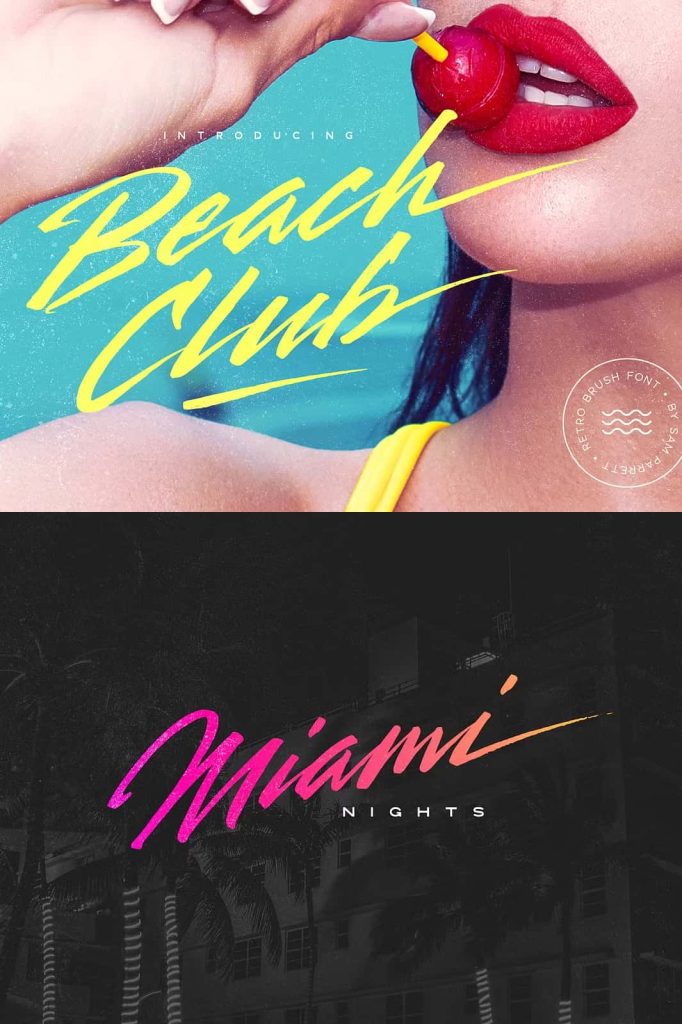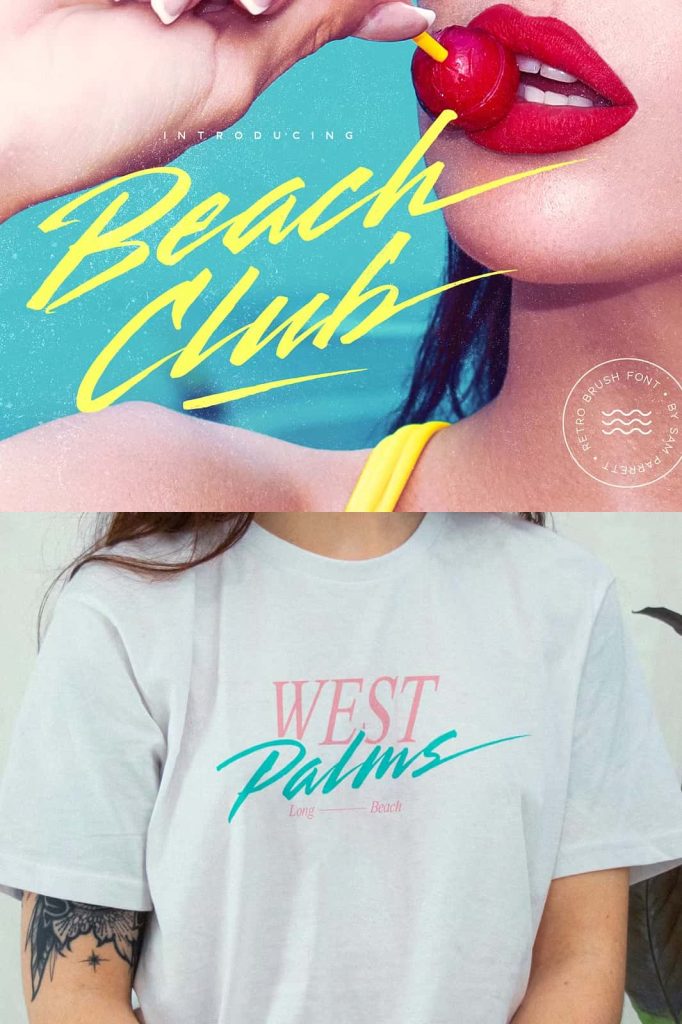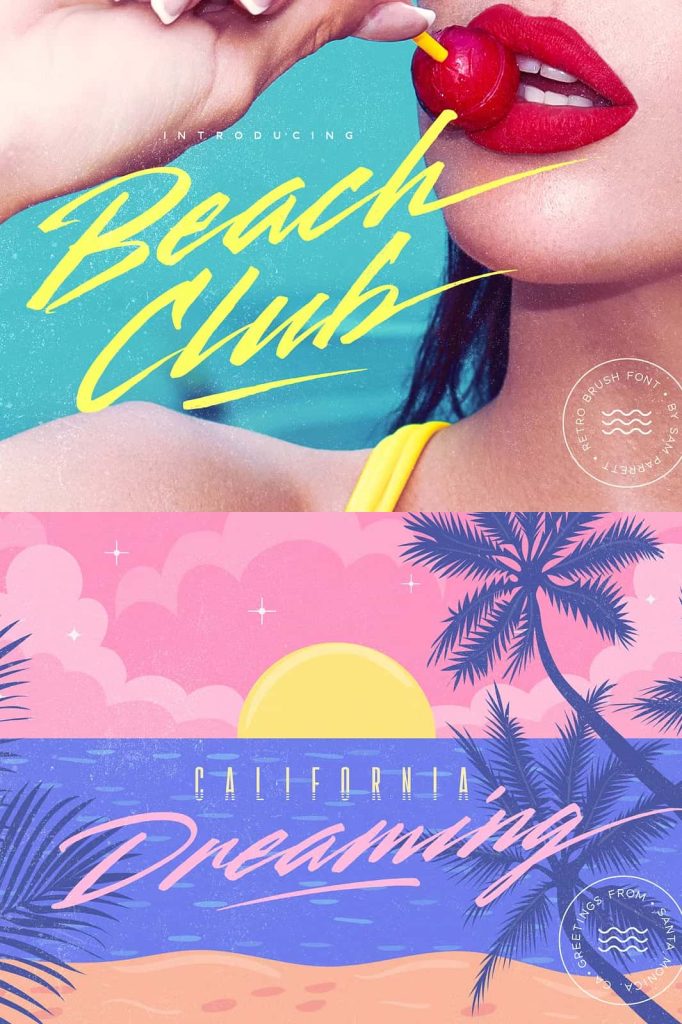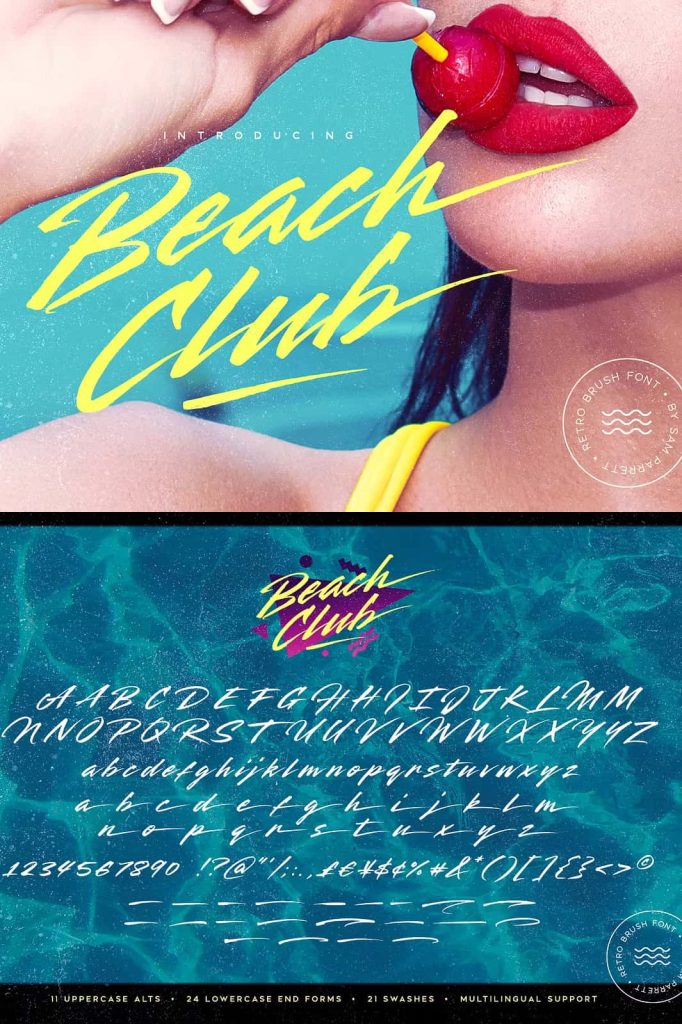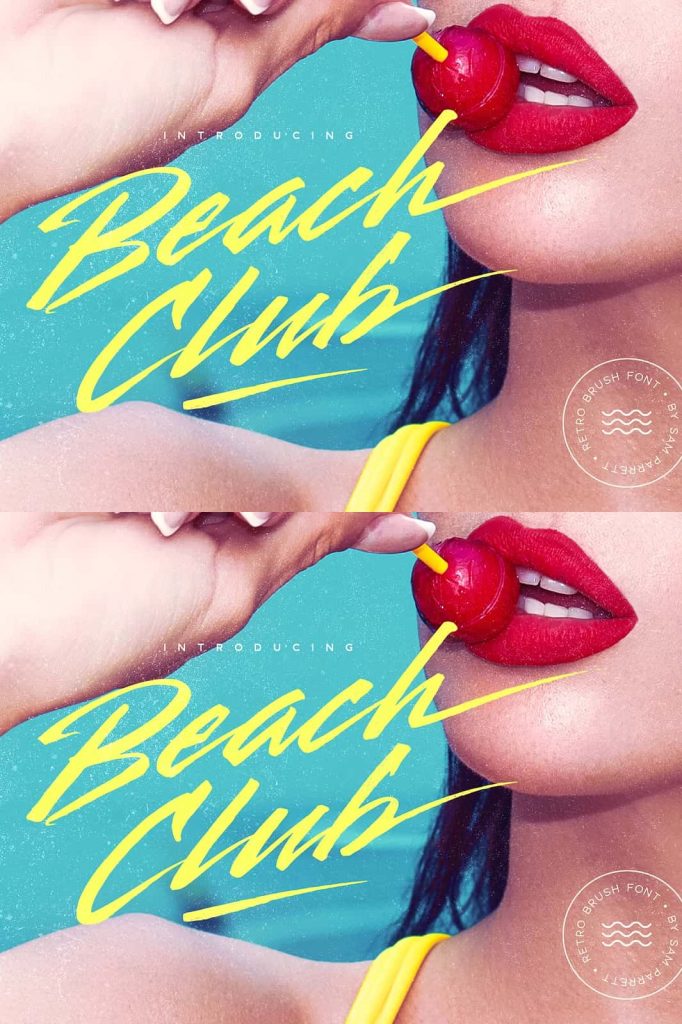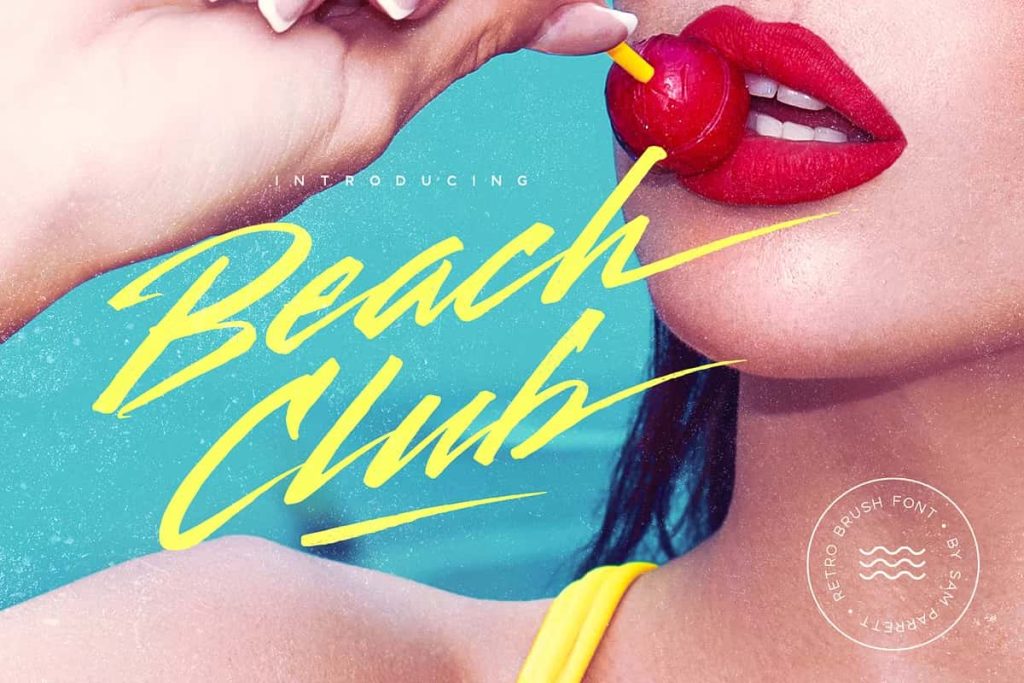
Beach Club Retro Brush Font
Beach Club Retro Script Font – Vibrant 80s and 90s Inspired Typography
Step into a world of sunshine, relaxation, and retro energy with the Beach Club Retro Script Font. Inspired by the carefree atmosphere of beachside destinations, tropical vacations, and the colorful design trends of the 1980s and 1990s, this dynamic script typeface brings personality and excitement to every creative project. Designed to capture the spirit of leisure and adventure, Beach Club delivers bold visual impact while maintaining excellent readability and versatility.
Whether you are creating a signature-style logo, eye-catching product packaging, nostalgic marketing materials, or vibrant social media graphics, Beach Club provides the perfect balance of fun, style, and authenticity. Its flowing letterforms and energetic character make it an excellent choice for designers who want to create memorable visuals that instantly attract attention.
Inspired by the Golden Era of Retro Design
Beach Club draws inspiration from the iconic design aesthetics that defined the 1980s and 1990s. During this era, typography embraced bold expression, vibrant colors, and playful creativity. This script font captures those same qualities through its fluid strokes, confident curves, and expressive personality.
The result is a typeface that feels nostalgic while remaining highly relevant for modern design applications. By combining vintage influences with contemporary usability, Beach Club allows designers to create work that resonates with audiences across multiple generations.
Bring Energy and Personality to Every Design
Typography plays a critical role in shaping the personality of a brand or project. Beach Club instantly communicates fun, excitement, and creativity through its energetic script style. The flowing characters create a natural sense of movement that helps designs feel more dynamic and engaging.
This vibrant personality makes the font ideal for businesses and brands that want to appear approachable, adventurous, and memorable. From lifestyle products to entertainment promotions, Beach Club helps establish a strong visual identity that stands out in competitive markets.
Perfect for Signature Style Logos
One of the strongest applications for Beach Club Retro Script Font is logo design. Its handcrafted appearance creates an authentic signature-style effect that feels personal and distinctive. Designers can use the font to build logos that communicate confidence, creativity, and originality.
Create Memorable Brand Identities
The unique script styling helps businesses establish recognizable visual branding. Whether launching a new company or refreshing an existing identity, Beach Club provides a bold and memorable foundation for logo development.
Enhance Lifestyle and Fashion Brands
The font works especially well for fashion labels, surf brands, travel companies, beauty products, beverage businesses, and lifestyle-focused organizations that want to communicate energy and optimism.
Ideal for Product Packaging Design
Product packaging requires typography that captures attention while reflecting the personality of the brand. Beach Club excels in this role by delivering strong visual appeal and a distinctive retro aesthetic. Its lively script forms help products stand out on retail shelves and digital marketplaces alike.
The font is particularly effective for packaging projects involving beverages, snacks, apparel, cosmetics, beach accessories, and specialty consumer products. Its nostalgic character adds authenticity while creating a memorable customer experience.
Excellent for Display Text and Marketing Materials
Beach Club performs beautifully as a display font for headlines, posters, advertisements, event promotions, and marketing campaigns. Its bold personality allows designers to create impactful typography that immediately grabs attention.
Large-scale applications showcase the font’s flowing details and expressive style, making it an excellent choice for promotional graphics that need to communicate excitement and enthusiasm. Whether used in print or digital formats, Beach Club delivers strong visual performance.
Perfect for 80s and 90s Inspired Graphics
The growing popularity of retro-inspired design has created significant demand for fonts that authentically capture the visual spirit of past decades. Beach Club meets this demand by offering a genuine nostalgic aesthetic that complements vintage-themed projects.
Designers can use the font for retro posters, throwback merchandise, music event branding, social media content, apparel graphics, YouTube thumbnails, and themed marketing campaigns. Its distinctive style instantly evokes memories of classic beach culture, neon signage, and vintage summer adventures.
Versatile Across Print and Digital Platforms
Beach Club Retro Script Font adapts seamlessly to a wide range of design environments. Whether you are working on print materials, websites, mobile applications, online advertisements, or social media content, the font maintains its strong visual presence and readability.
For designers seeking a font that delivers excitement, creativity, and memorable visual impact, Beach Club offers the perfect solution. Its playful character and signature-style appearance help transform ordinary projects into engaging designs that capture attention and leave a lasting impression.